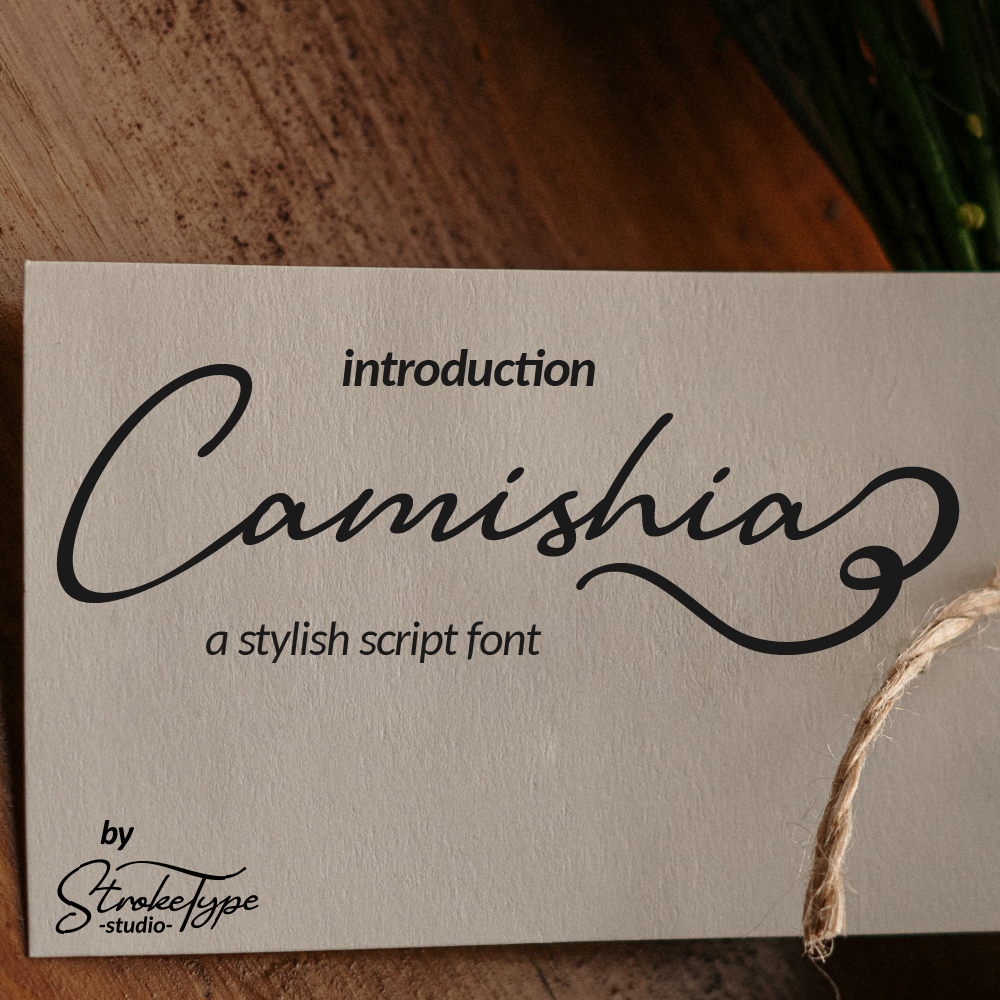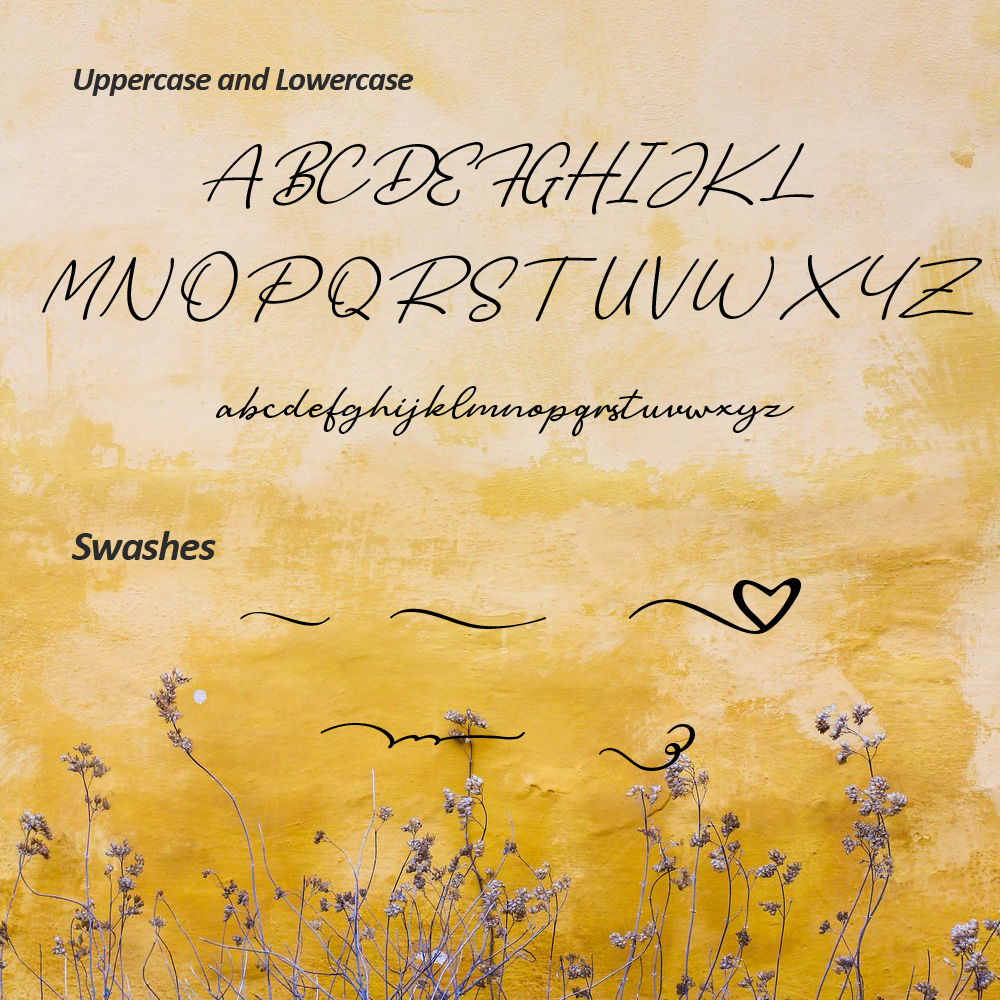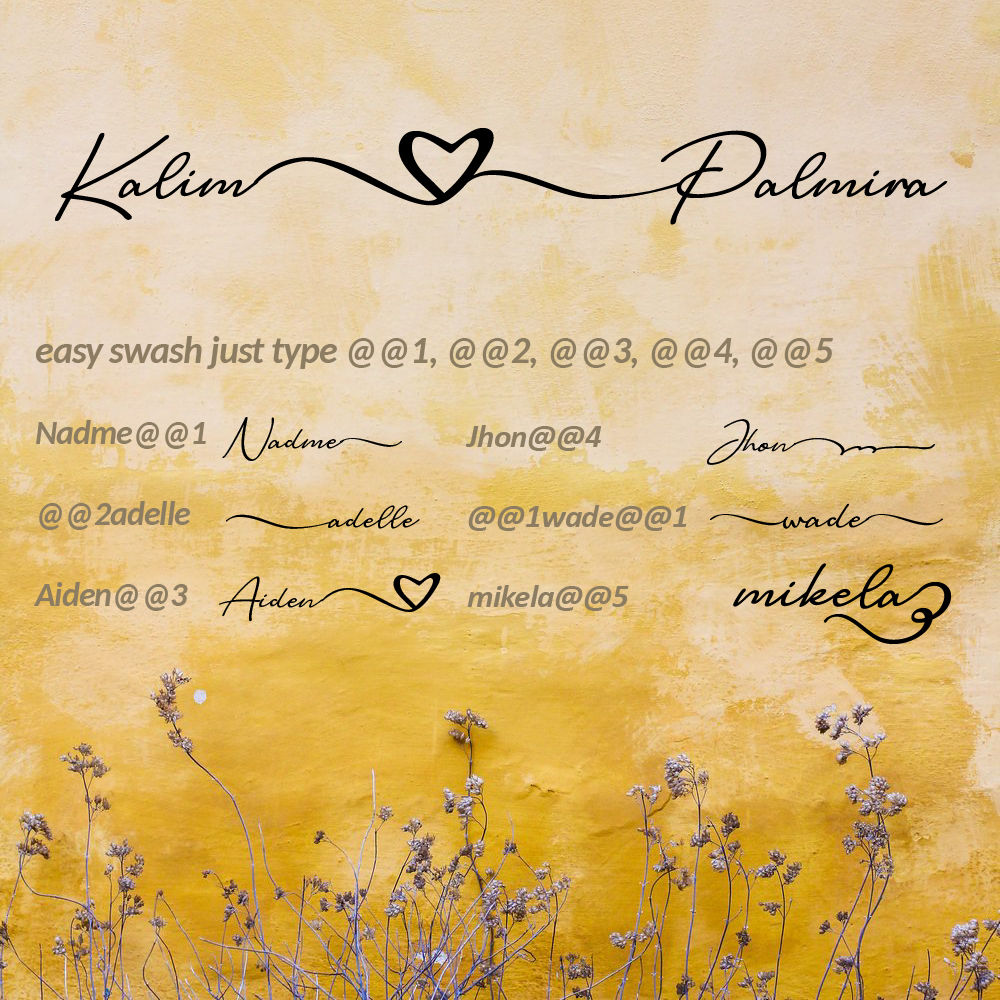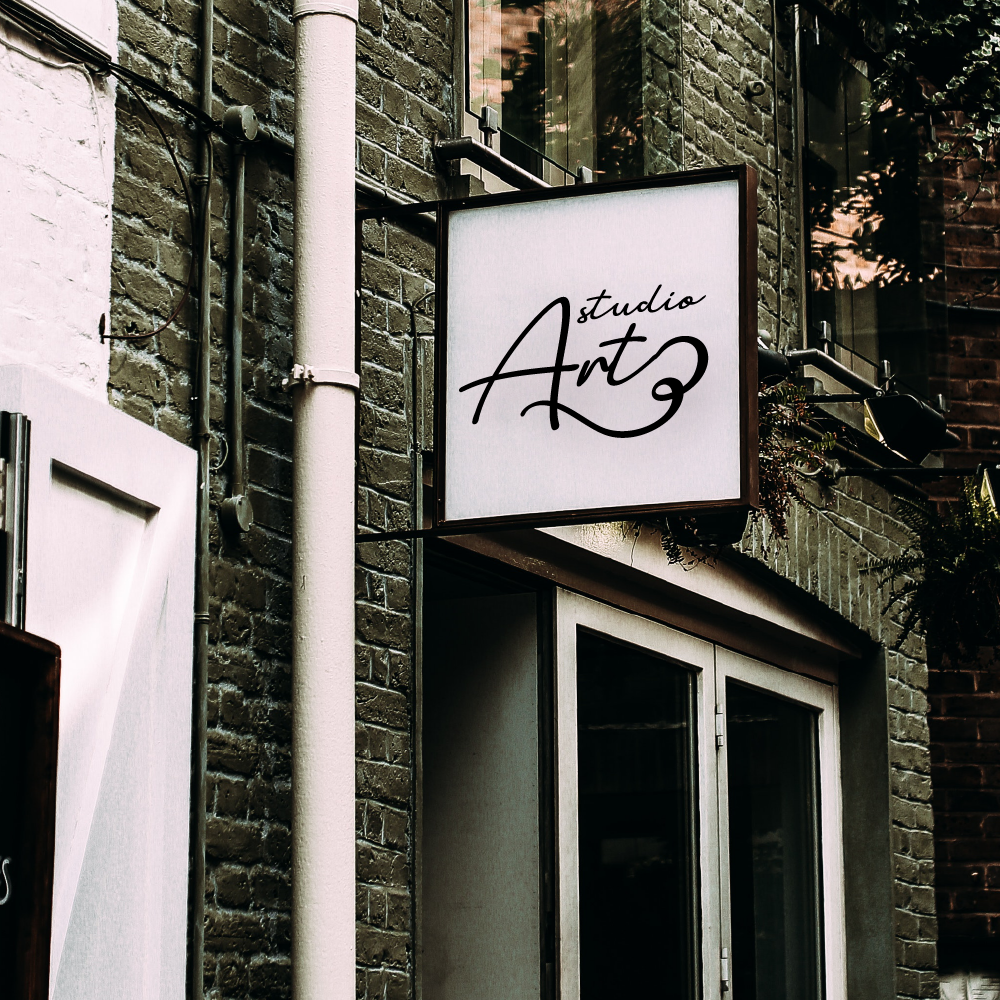
Camishia Signature Font
Introducing the lovely Camishia Signature Font!
Camishia is a Stylish Signature font, with a natural & stylish flow. Camishia Font is perfect for many different project such as logos & branding, invitation, stationery, wedding designs, social media posts, advertisements, product packaging, product designs, label, photography, watermark, special events or anything.
Features
- Uppercase and Lowercase letters
- Numbering and Punctuations
- Multilingual Support
- Easy access swash, just type @@1, @@2, ... etc